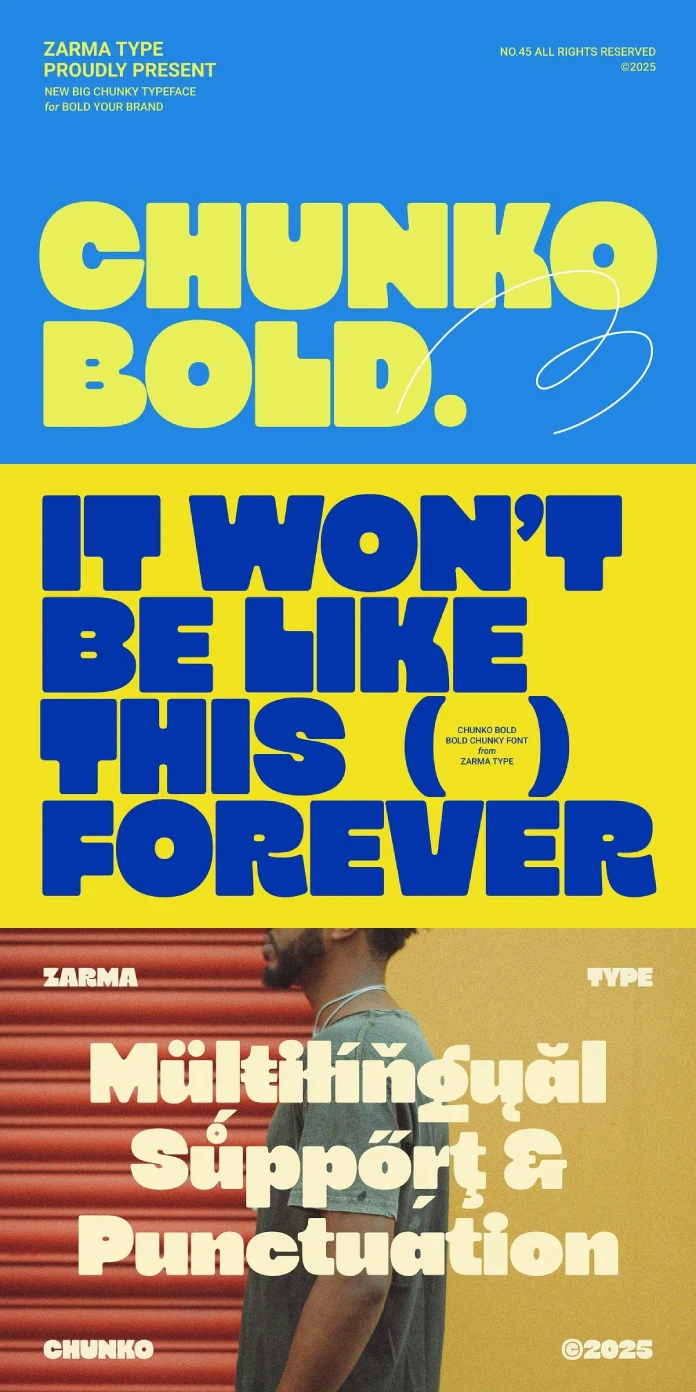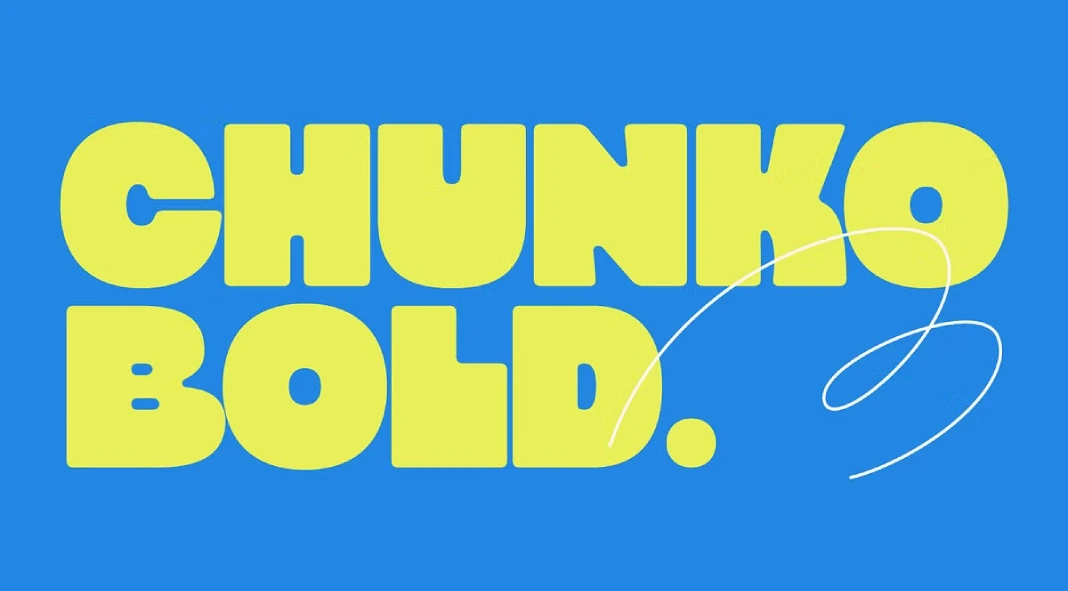
When it comes to bold, impactful, yet minimalist but also fun typography, one font is quickly becoming a favorite: Chunko Bold. But what makes it so special? Why is everyone talking about it? And how can you use it to level up your designs?
This isn’t just another font review; it’s a deep exploration into the world of Chunko Bold, a sans-serif masterpiece crafted by Zarma Type. We’ll uncover what makes this typeface tick, why it’s perfect for today’s design trends, and how to use it effectively. Get ready to discover why this typeface might just be your new go-to font.
What is Chunko Bold and Why Should You Care?
Chunko Bold is more than just a collection of letters; it’s a statement. It’s a sans-serif font that embodies modern minimalism, which is huge these days. Its chunky geometry and playful rounded edges give it a strong presence. This makes it ideal for brands and designers aiming for a clean, impactful look.
Think about some of the brands you admire. Notice how many are using bold, simple typography? Chunko Bold fits right into that aesthetic. This makes it perfect for anyone looking to create a lasting impression.
The Power of Chunko Bold’s Design
What makes Chunko Bold stand out from the crowd? It’s all in the details.
- Bold Minimalism: It’s right there in the name. Chunko Bold embraces the minimalist approach but isn’t afraid to be seen. The strong, thick letterforms command attention without being overwhelming.
- Rounded Edges: These subtle curves add a touch of playfulness and approachability to the font. It prevents it from feeling too sterile or corporate.
- Balanced Weight: The weight distribution is carefully considered, ensuring each character is visually balanced and harmonious. This means easy readability, even at larger sizes.
- Modern Aesthetic: Chunko Bold feels contemporary. It avoids looking dated or generic, making it perfect for forward-thinking brands.
Where Does Chunko Bold Shine?
Now that you know what Chunko Bold is all about, let’s talk about where it truly excels. Its versatility makes it a powerful tool in many scenarios.
- Branding: Creating a logo or brand identity? This fun font can be a fantastic choice. It conveys confidence, modernity, and simplicity. It works great on websites, business cards, and marketing materials.
- Headlines: Need to grab attention? Chunko Bold is perfect for headlines. Its strong presence ensures your message is seen and read. It makes the words pop off the page.
- Posters: Designing a poster? This striking typeface can be the star of the show. Its bold nature makes it ideal for impactful designs. It’s great for events, announcements, and promotions.
- Packaging: Want your product to stand out on the shelf? Chunko Bold can help. Its clean, modern aesthetic adds a touch of sophistication to any package. Consumers can easily read what you are selling.
- Social Media Graphics: Want to make eye-catching content? This font provides strong visuals and creates captivating social media content.
Chunko Bold: Features That Make a Difference
Beyond its aesthetic appeal, Chunko Bold packs a punch in terms of functionality. These features make it a designer’s dream.
- Multilingual Support: Reach a global audience with its broad language support.
- PUA Encoded Characters: Easy access to special characters for unique design touches.
- Stylistic Alternates: Customize your designs with alternative letterforms.
- Standard & Discretionary Ligatures: Elevate your typography with elegant letter combinations.
- Complete Punctuation Set: Ensure you have all the necessary characters for perfect punctuation.
Why this Typeface Resonates in the Era of Minimalism
Minimalism isn’t just a trend; it’s a design philosophy. People crave simplicity, clarity, and authenticity. The typeface embodies these values perfectly. Its clean lines, bold presence, and playful curves create a typeface that is both modern and approachable.
With all the information that we have to consume every day, Chunko Bold cuts through the noise. It helps brands communicate their message clearly and effectively.
How to Make this Sans-Serif Typeface Work for You
Ready to start using the typeface? Here are a few tips to keep in mind:
- Contrast is Key: Pair it with a lighter-weight font for body text to create a visual hierarchy.
- Embrace White Space: Let it breathe by giving it plenty of white space.
- Experiment with Color: Use color to enhance its impact and create visual interest.
- Consider Your Audience: Ensure it aligns with your brand’s personality and target audience.
Is Chunko Bold the Right Choice?
So, is this the perfect font for you? If you’re looking for a typeface that is bold, modern, and minimalist, the answer is likely yes. Its versatility, readability, and impactful design make it a valuable asset for any designer or brand. Chunko Bold gives your work quality.